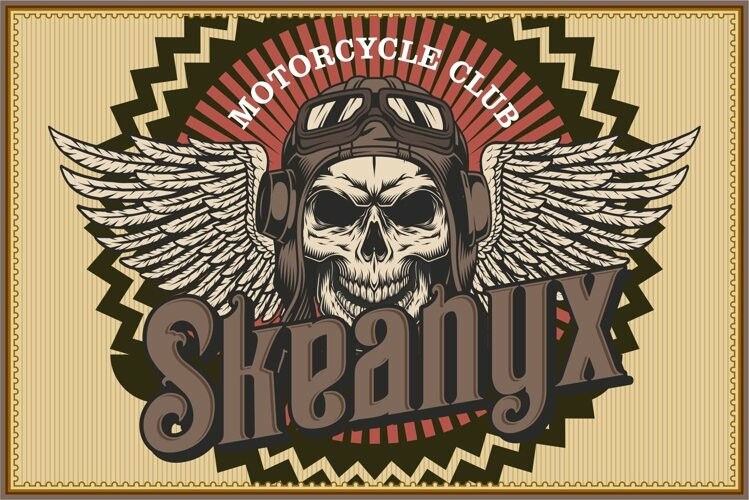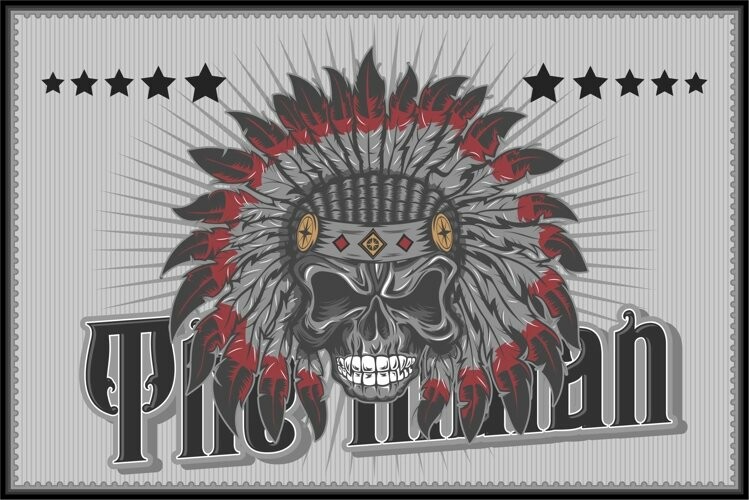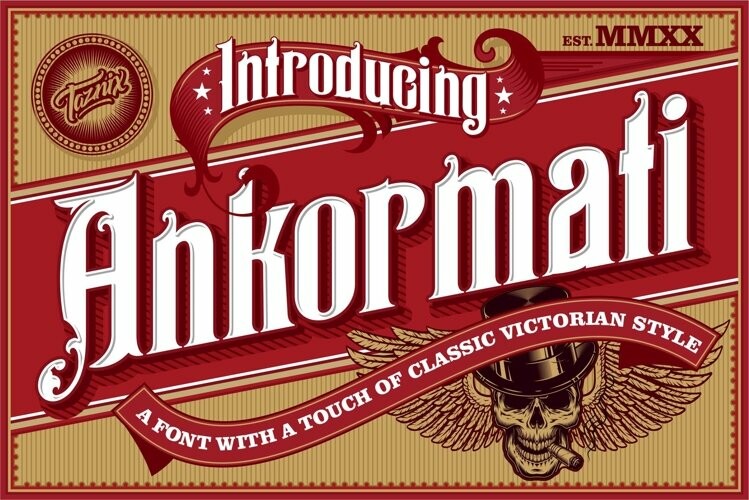
Ankormati Font
Ankormati FontAnkormati Is a font with a touch of classic Victorian era style with bold letters wrapped in small ornaments that add to the feel of the Victorian era, but here it makes the look of this font with a colorful retro feel, not really like the old Victorian era design. But this can be tailored to the desires of your design needs, This font fits perfectly with the retro vintage style which will add classic value to your designs.